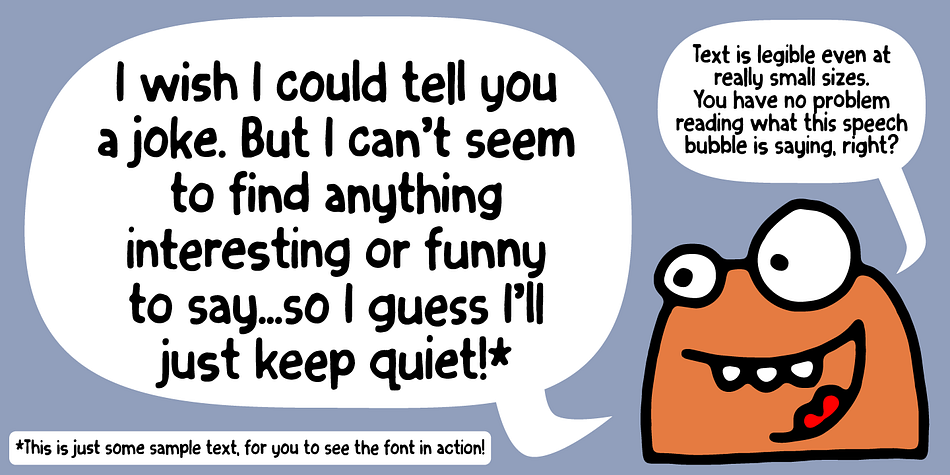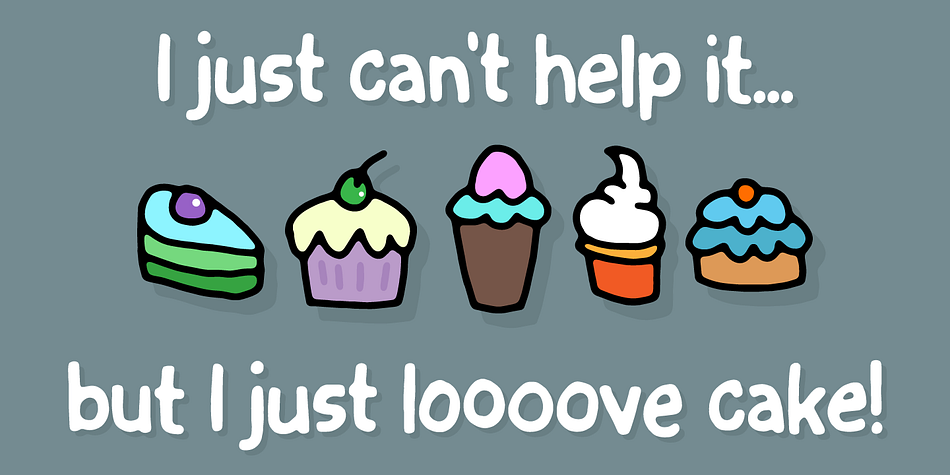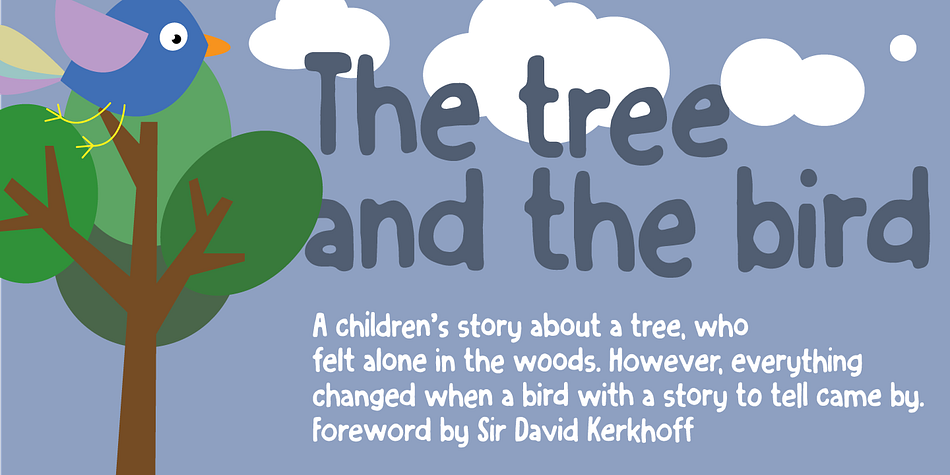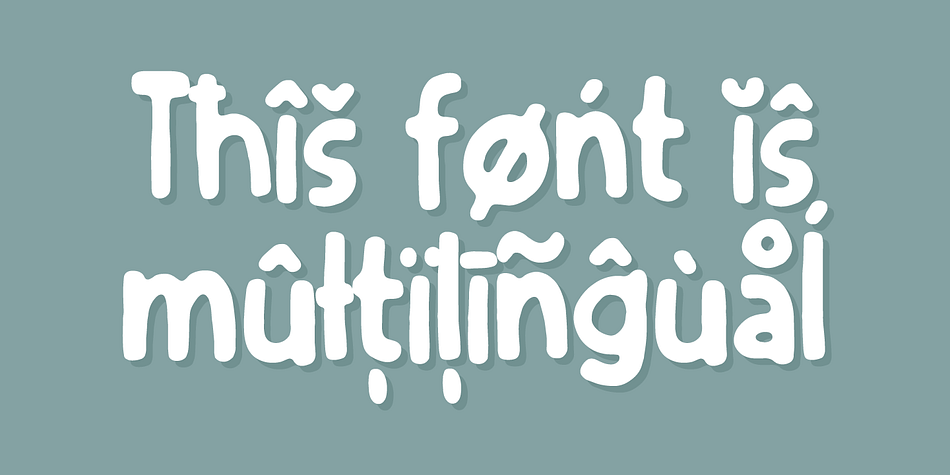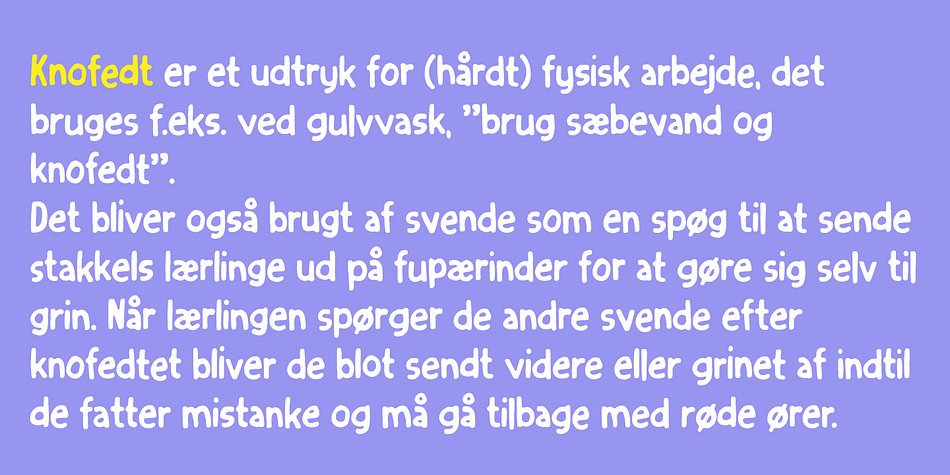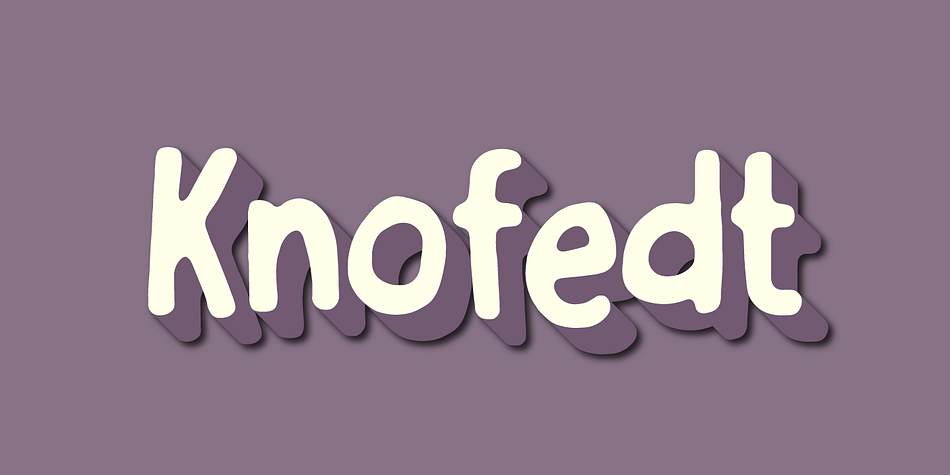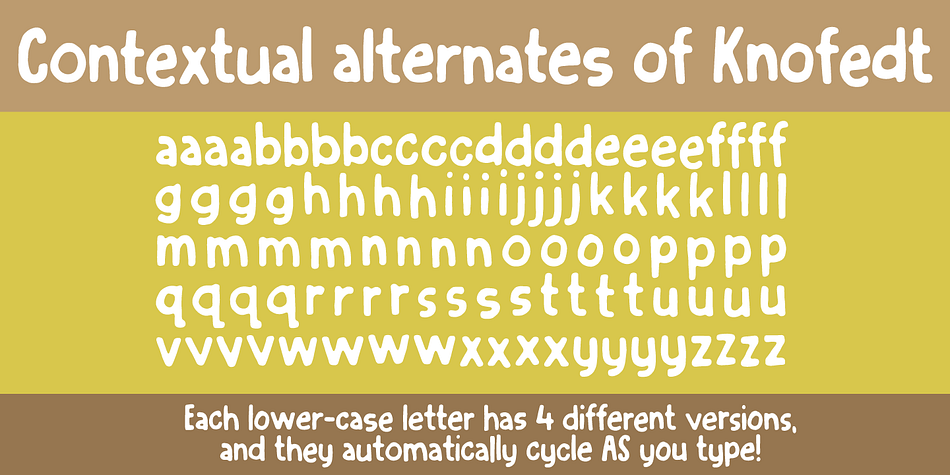
Designed by Jakob Fischer, Knofedt is a comic, hand drawn and kids font family. This typeface has two styles and was published by Pizzadude.dk.
Comicbook letters with a laid back slightly wobbly look!
4 different lowercase letters, which automatically cycle as you type! Wow!